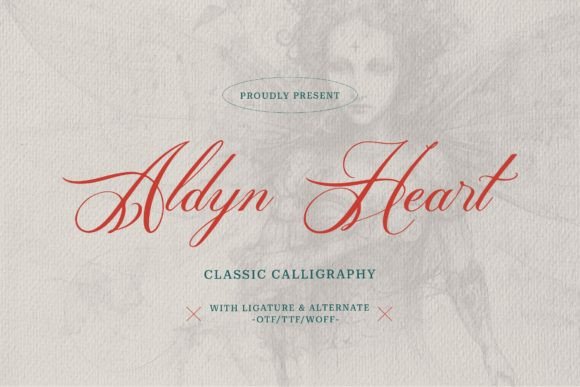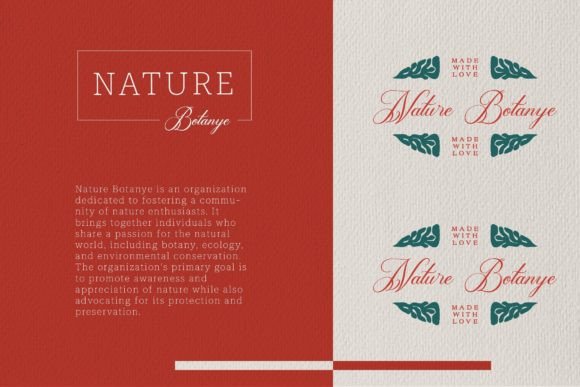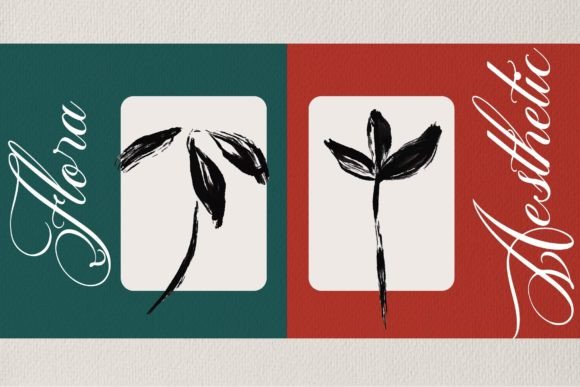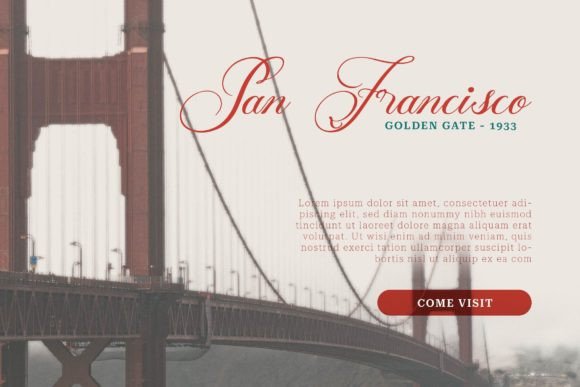
Aldyn Heart Font: Elegant Calligraphy for Wedding & Logo Design
About the Aldyn Heart Font
We are excited to introduce Aldyn Heart Font, a must-have typeface for any serious designer. Aldyn Heart is a luxury calligraphy font, suitable for any projects such as logos, branding projects, homeware designs, product packaging, mugs, quotes, posters, shopping bags, t-shirts, book covers, name card, invitation cards, greeting cards, label, photography, watermark, special events, and all your other luxury and beautiful projects that need a luxury calligraphy taste.
Aldyn Heart’s elegant, slightly whimsical style excels in headlines, short-form text, and logo design. It’s particularly effective for branding projects targeting luxury goods or sophisticated services, enhancing packaging and stationery designs. Avoid using it for large blocks of body text or UI elements where readability is paramount; its decorative nature can hinder legibility.
Pairing Aldyn Heart with a clean sans-serif like Lato or a neutral serif like Garamond creates a balanced and sophisticated aesthetic. For a more playful approach, consider a geometric sans-serif such as Montserrat. The contrast in styles ensures visual hierarchy and prevents visual fatigue.
The font projects a personality that is both luxurious and approachable, conveying a sense of refined quality without being overly formal or cold. It’s ideal for brands that value craftsmanship, individuality, and a touch of romantic charm.
Aldyn Heart Font Usage Examples
Aldyn Heart Font Example